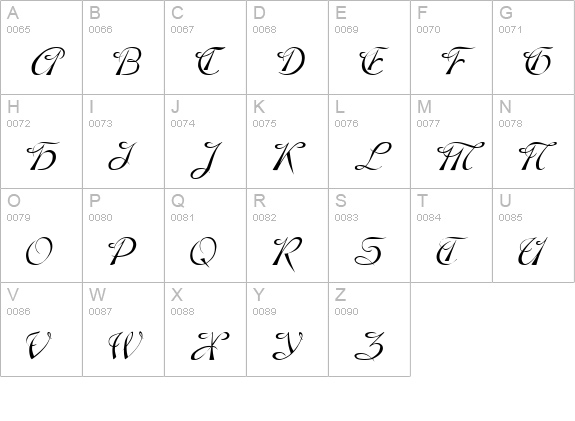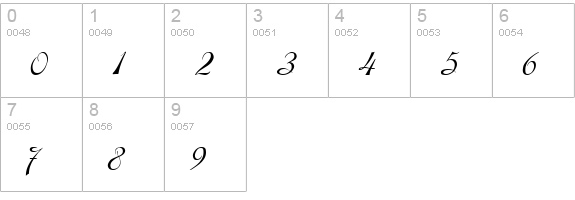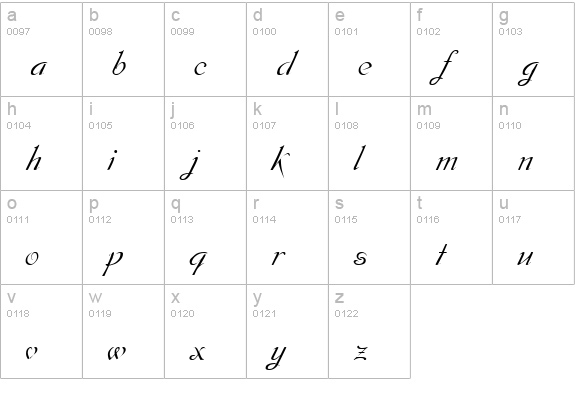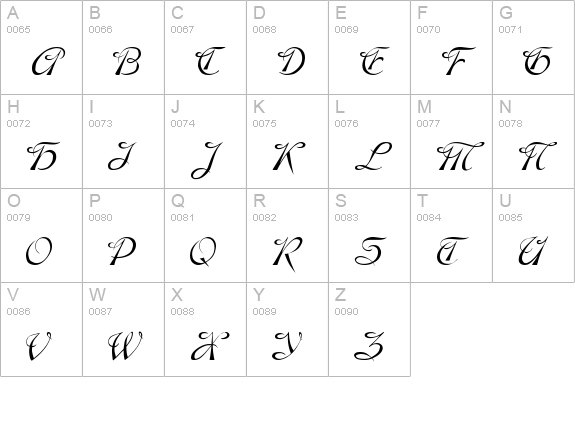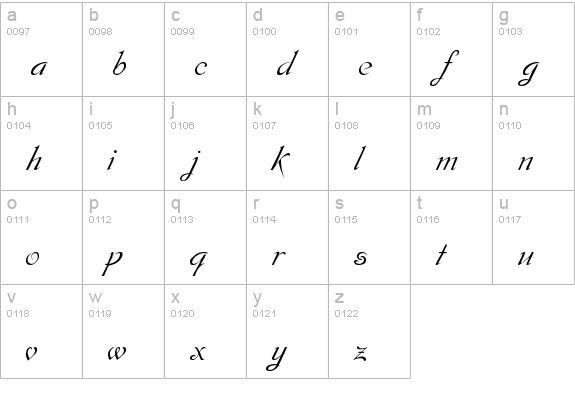
Vivian Font Details
The Vivian font is a stunning and elegant typeface that exudes sophistication and style. With its graceful curves and delicate lines, Vivian is perfect for adding a touch of class to any design project. This versatile font is suitable for a wide range of applications, from branding to invitations to editorial design. What's even better is that Vivian is available for free download at FontsMarket.com! This means you can easily access this beautiful font and use it in your projects without any cost. Don't miss out on the opportunity to enhance your designs with the timeless beauty of Vivian font. Download it today and elevate your creations to the next level.